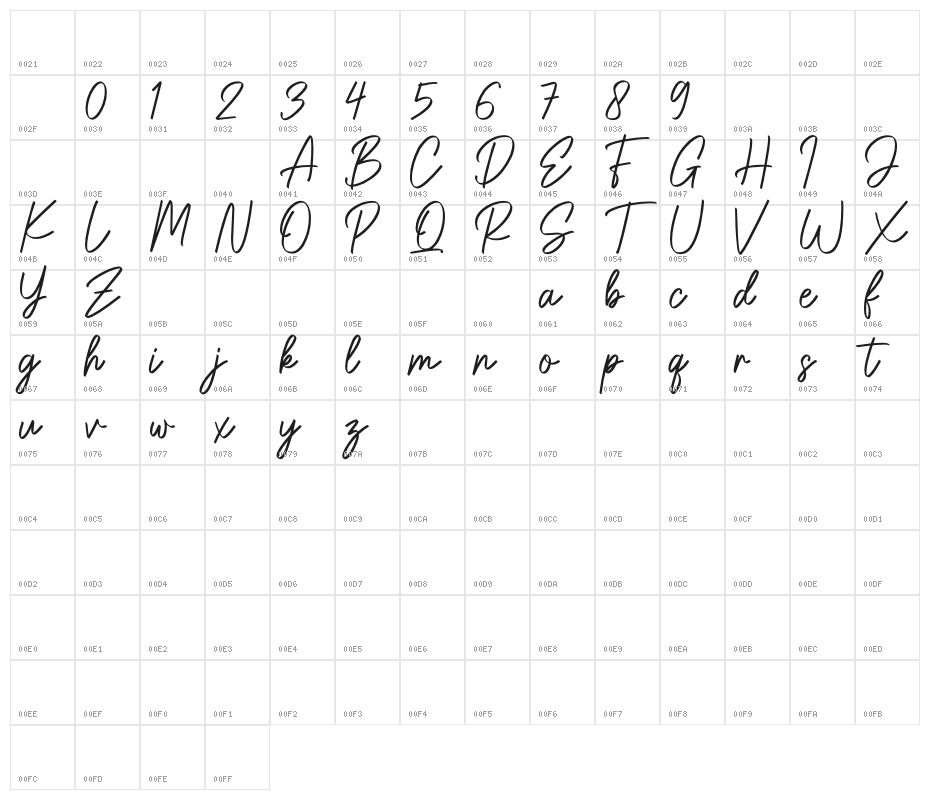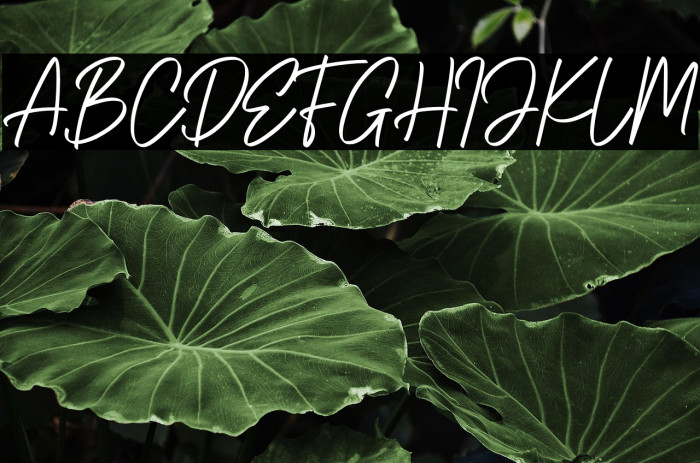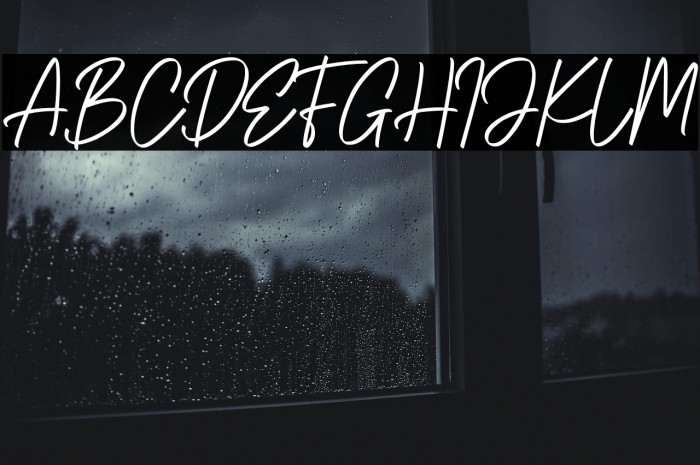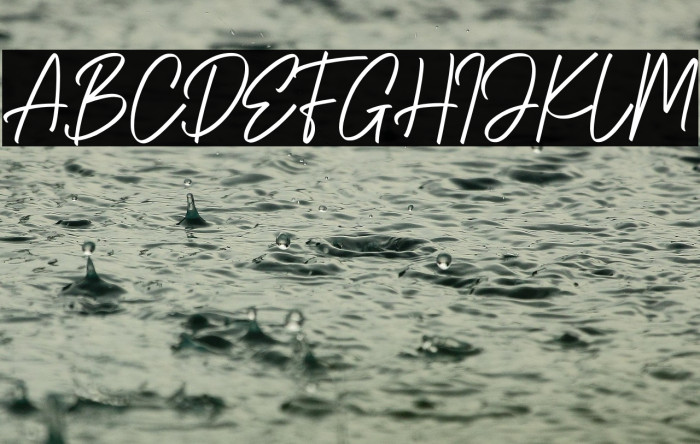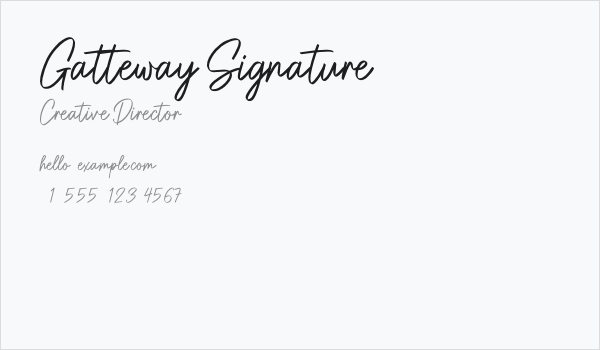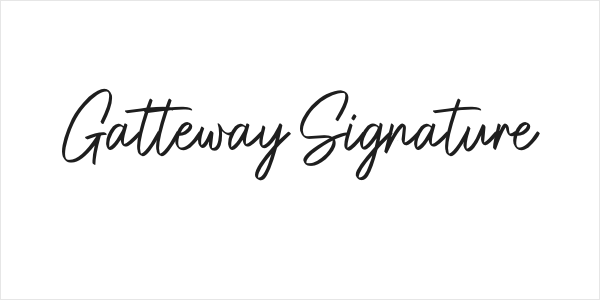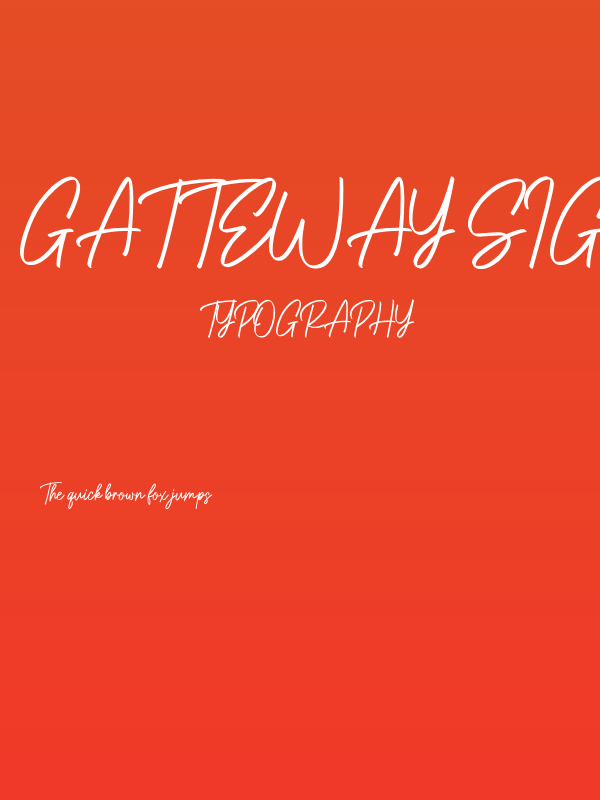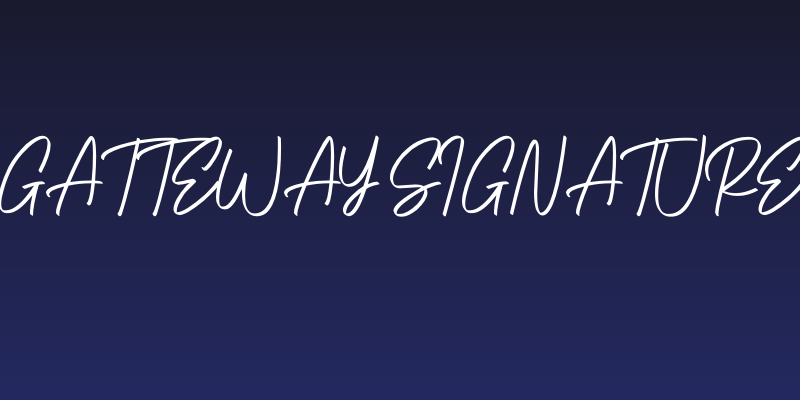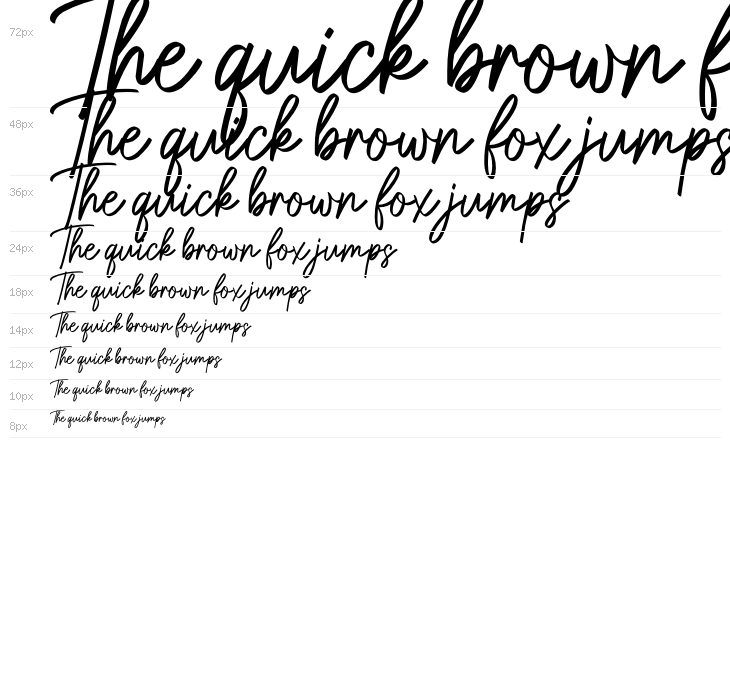
Gatteway Signature Font
Gatteway Signature Description
This font exudes a stylish and elegant handwritten aesthetic, characterized by its fluid and connected letterforms. The uppercase letters maintain a consistent height, with a slight slant that adds a dynamic feel. The lowercase letters are more expressive, with varying heights and loops that enhance the script's natural flow. The numerals are clear and legible, complementing the overall cursive style. The special characters are seamlessly integrated, maintaining the font's cohesive look. This font is perfect for projects that require a personal touch, such as invitations, branding, and creative designs.
| Use Case | Logos, Headlines, Invitations |
| Proposed Projects | Ideal for invitations, branding, personal notes, and creative design projects. |